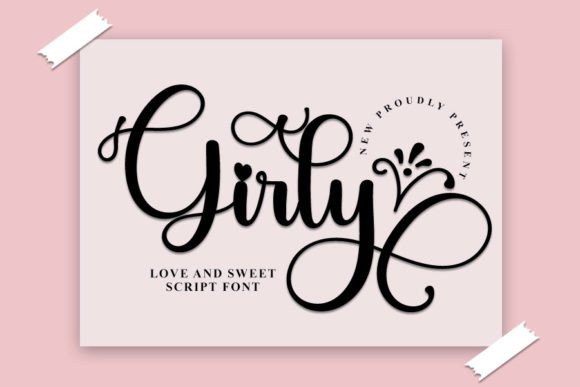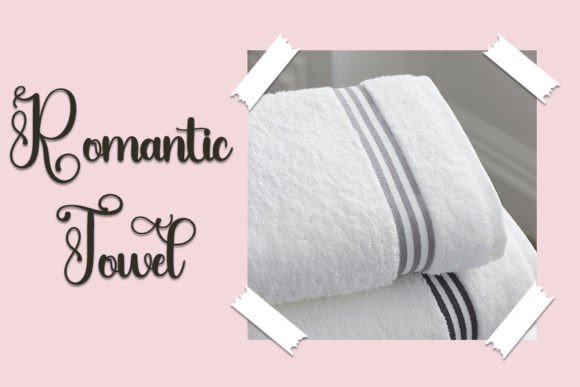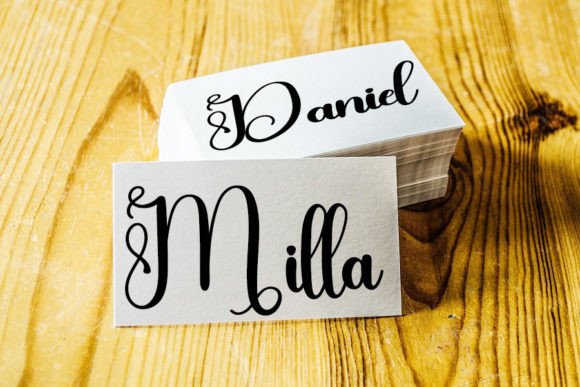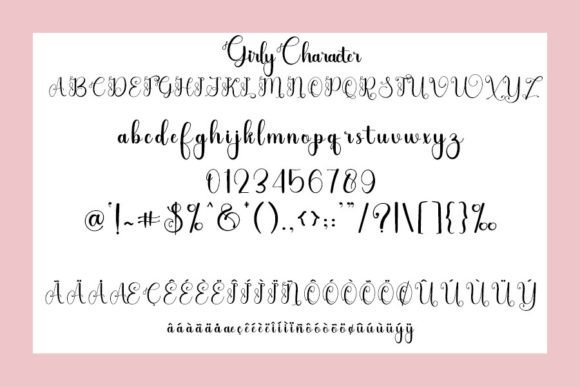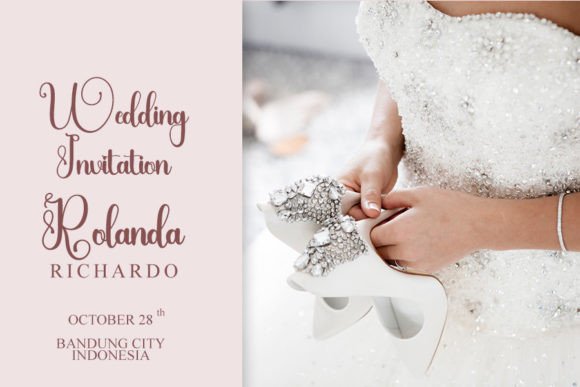
About Girly Font
Introducing Girly, a trendy handwritten font with a contemporary atmosphere and impeccable form, inspired by timeless classic calligraphy. Designed to add elegance and class to your design projects, Girly is a versatile font that can be used to write various kinds of products, adapting to the unique needs of each project.
The beauty of Girly lies in its trendy yet classic calligraphy style, offering a harmonious blend of modern aesthetics and timeless elegance. Whether applied to branding, invitations, packaging, or other creative ventures, this font enhances the visual appeal, creating designs that exude both style and sophistication.
In branding, Girly becomes a refined and stylish choice, showcasing calligraphic elements that contribute to a distinctive and memorable brand identity, allowing it to stand out with elegance.
Invitations adorned with Girly carry an air of sophistication. Whether for weddings, events, or formal gatherings, the font adds a touch of refinement, setting the tone for a stylish and memorable celebration.
Packaging designs benefit from Girly’s versatile and elegant style. The font elevates the overall perception of your products, making them more visually appealing and appealing to a discerning audience.
Girly is designed to be adaptable to various design needs, allowing you to write various kinds of products according to the aspect of each need. Whether used in digital designs or print materials, this font is crafted to make a visual impact.
In conclusion, Girly is a trendy handwritten font that brings a touch of timeless elegance to your designs. Choose Girly to add sophistication and class to your branding, invitations, packaging, and more, creating visually stunning and memorable outcomes.